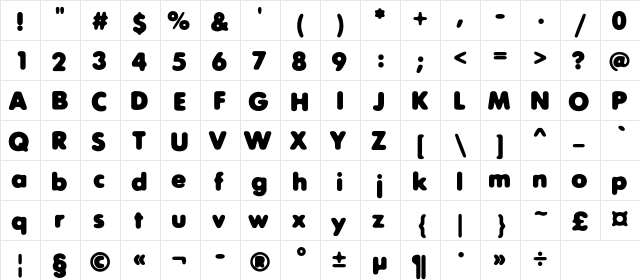
ExposureThreeC Regular Font Preview
ExposureThreeC Regular
ExposureThreeC Regular Font Details
Design Context for ExposureThreeC Typeface
ExposureThreeC takes a measured approach to typography — its balanced proportions and neutral character make it a reliable workhorse for both digital and print work.